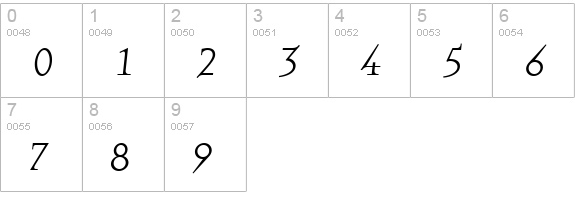
QuartetSmallcaps Font Details
QuartetSmallcaps font is a delightful and elegant typeface that adds a touch of sophistication to any project. With its beautifully crafted small caps, this font exudes a sense of timeless charm and class. The letters are meticulously designed with precise curves and clean lines, resulting in a harmonious and balanced appearance. QuartetSmallcaps font is perfect for a wide range of design applications, from branding and logo design to editorial layouts and invitations. Its versatility allows it to beautifully complement both modern and traditional aesthetics. One of the best features of QuartetSmallcaps font is that it is freely available to download at FontsMarket.com. This means that you can easily access this stunning font without any cost. Whether you are a professional designer or just starting out, this font is a valuable addition to your font library. The elegant and sophisticated nature of QuartetSmallcaps font makes it ideal for creating a refined and polished look. Its small caps add a touch of distinction and uniqueness, ensuring that your designs stand out from the crowd. The legibility of this font is exceptional, making it suitable for both print and digital media. Enhance your next project with the timeless beauty of QuartetSmallcaps font. Download it for free at FontsMarket.com and elevate your designs with its exquisite craftsmanship and impeccable style.